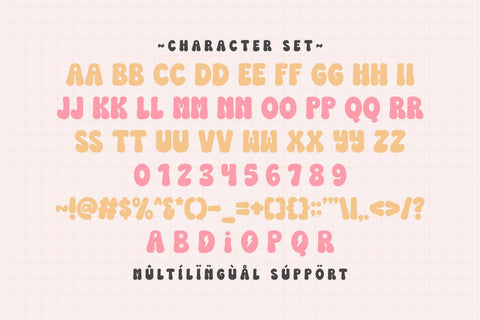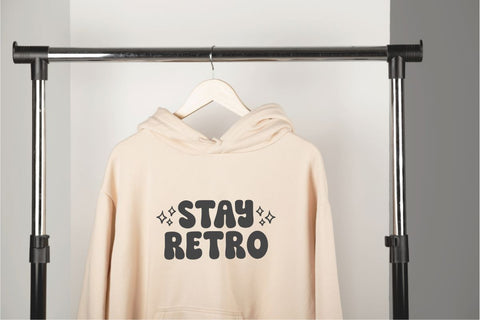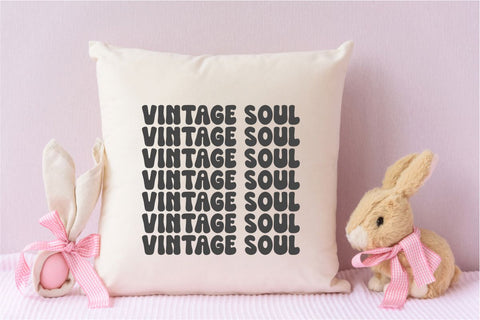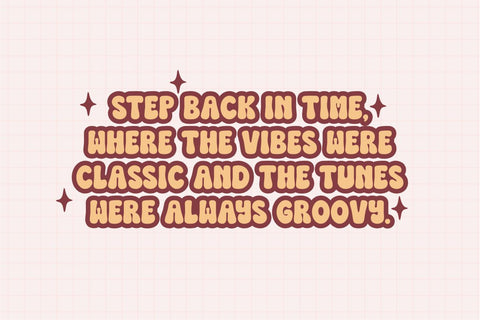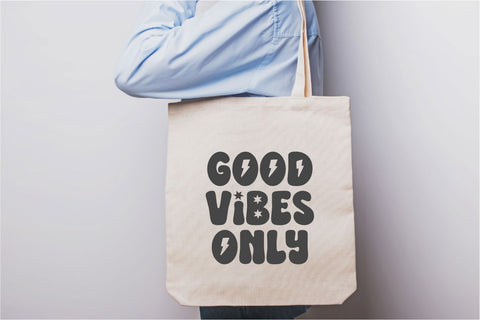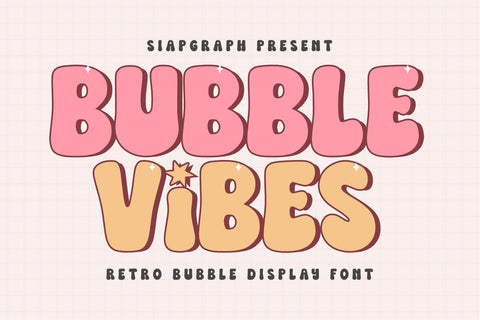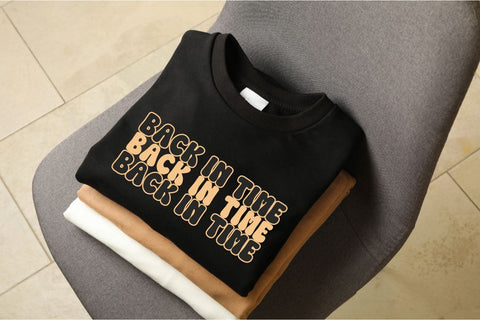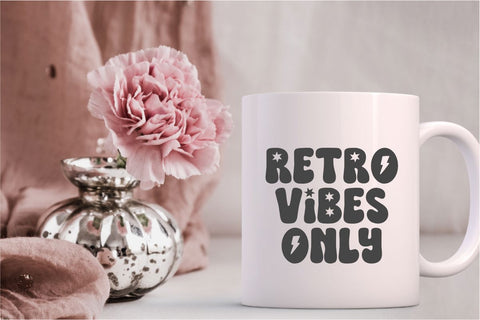
Bubble Vibes - Retro Bubble Font
Bubble Vibes is a captivating bubble retro display font that effortlessly transports your designs back to the vibrant and cheerful era of the 60s and 70s. Its plump, rounded, and wonderfully soft letterforms create a delightful three-dimensional effect, making your text pop with an infectious sense of fun and nostalgia. This font is perfect for infusing a dose of groovy energy and playful charm into a wide array of creative projects. Imagine Bubble Vibes enhancing vibrant stickers, whimsical planner elements, eye-catching t-shirt designs, sweet product labels, cheerful invitations, personalized tumblers, and a plethora of other engaging crafts. Its distinctively bubbly and retro style makes it exceptionally well-suited for products targeting end-users who enjoy crafting with tools like Cricut and for sublimation projects, as well as for creating appealing stickers and planner elements with a truly unique and joyful flair. Bubble Vibes' unforgettable and lively character will ensure your creations stand out, bringing a big smile and good vibes to everyone who sees them.